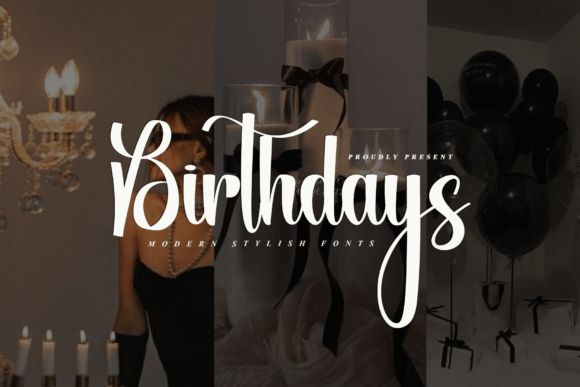
Unleash the Magic of Birthdays Font
It’s that moment of pure creative bliss when you stumble upon the perfect font – the one that elevates your design from good to great. For many of us, it’s a feeling that’s hard to put into words, but it’s the thrill of bringing a vision to life. For designers, this moment often comes when they discover a font that speaks to their style and aesthetic. And that’s exactly what the Birthdays Font does – it adds a touch of elegance and romance to any design, making it perfect for business branding, wedding invitations, and more.
The Birthdays Font is a beautiful handwritten script that combines professionalism with a personal touch. Its flowing lines, heart-shaped swashes, and smooth curves make it an ideal choice for designers who want to add a touch of warmth and charm to their work. Whether you’re creating logos, social posts, or stationery, the Birthdays Font is a versatile and stylish option that’s sure to impress.
Birthdays Font Key Features
- Unique Characteristics: Birthdays Font features a unique, hand-drawn design with intricate details and flourishes, making it perfect for use in creative and celebratory contexts.
Birthday Font Review
Overall, I’m impressed with the Birthday Font. Here are the things that work well: ✨ It has a playful, celebratory feel that’s perfect for birthday cards, party invitations, and other festive designs. ✨ The font is highly customizable, allowing you to adjust the size, color, and style to fit your specific needs. ✨ It also comes with a range of ornaments and decorations that can add a touch of whimsy to your designs.
However, there are a few limitations: ⚠️ The font can be a bit too loud and overwhelming if used in large quantities. ⚠️ Some of the ornaments and decorations can feel a bit too childish or cheesy, depending on the design. ⚠️ The font also doesn’t come with a bold or italic weight, which can limit its versatility.
Overall, I’d give the Birthday Font 4 out of 5 stars. While it has some limitations, its playful feel and high level of customization make it a great choice for designers looking to create fun and festive designs.
- Perfect for birthday cards, party invitations, and other festive designs
- Range of ornaments and decorations available
- Can be a bit too loud or overwhelming if used in large quantities
- Some ornaments and decorations can feel too childish or cheesy
- No bold or italic weight available
The “Birthdays Font” is perfect for creating birthday invitations, party decorations, and other celebratory designs. Some tips to get the most out of it include:
- Combine the font with other design elements, such as graphics and images, to create a cohesive design.
- Use the font to create a custom birthday message or quote.
Alternatives to Birthdays Font for Designers
Great Vibes is a modern, handwritten font perfect for creating a fun and lively atmosphere. It’s ideal for use in social media graphics, posters, and party invitations. When to use: For casual, playful designs that require a sense of energy and fun.
Comparison to Birthdays Font: While Birthdays Font is a bit more elegant and sophisticated, Great Vibes Font is more playful and carefree, making it a better choice for designs that require a more relaxed tone.
Alex Brush is a elegant, handwritten font that’s perfect for creating a sense of luxury and sophistication. It’s ideal for use in high-end designs, such as wedding invitations and luxury product packaging. When to use: For designs that require a sense of elegance and refinement.